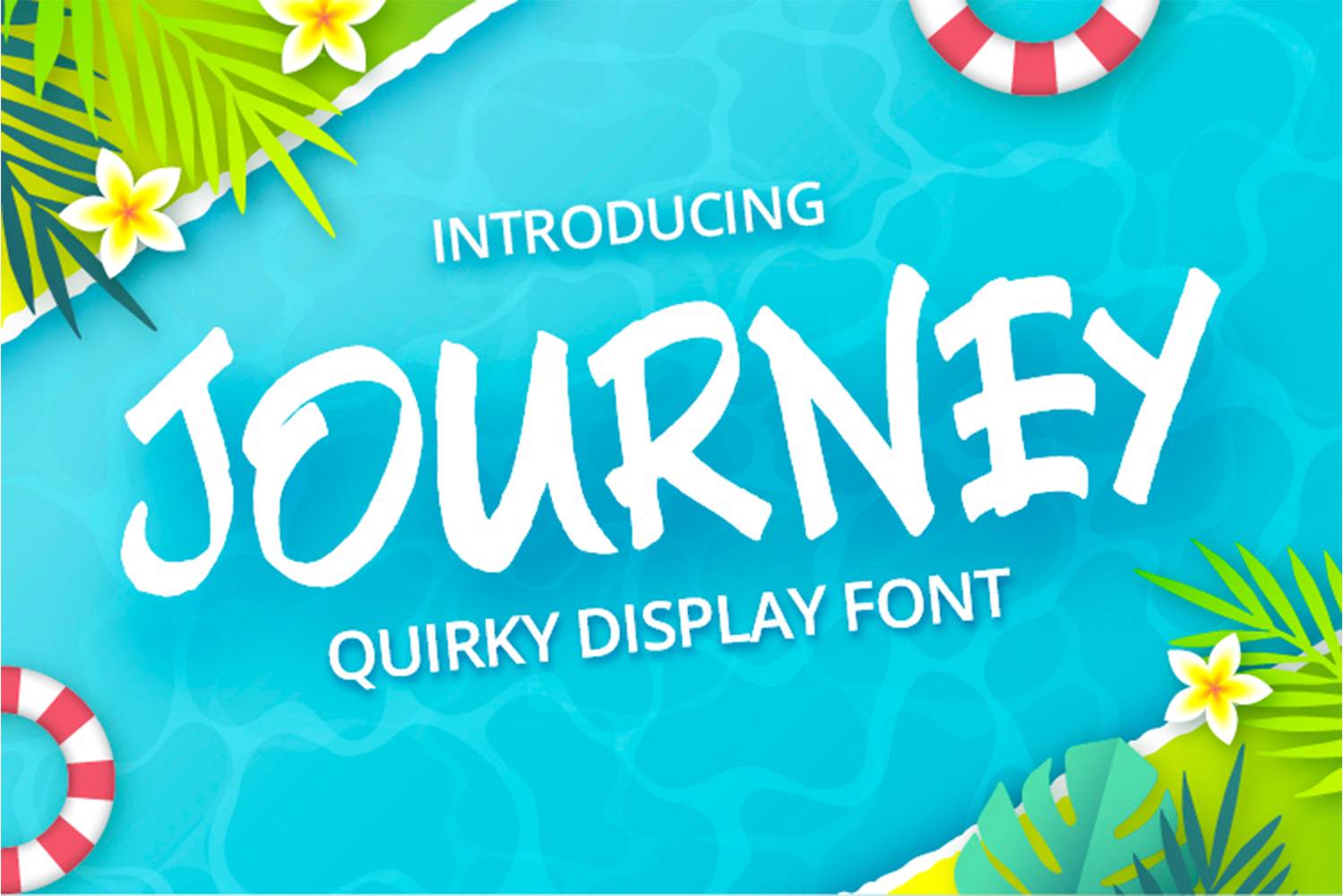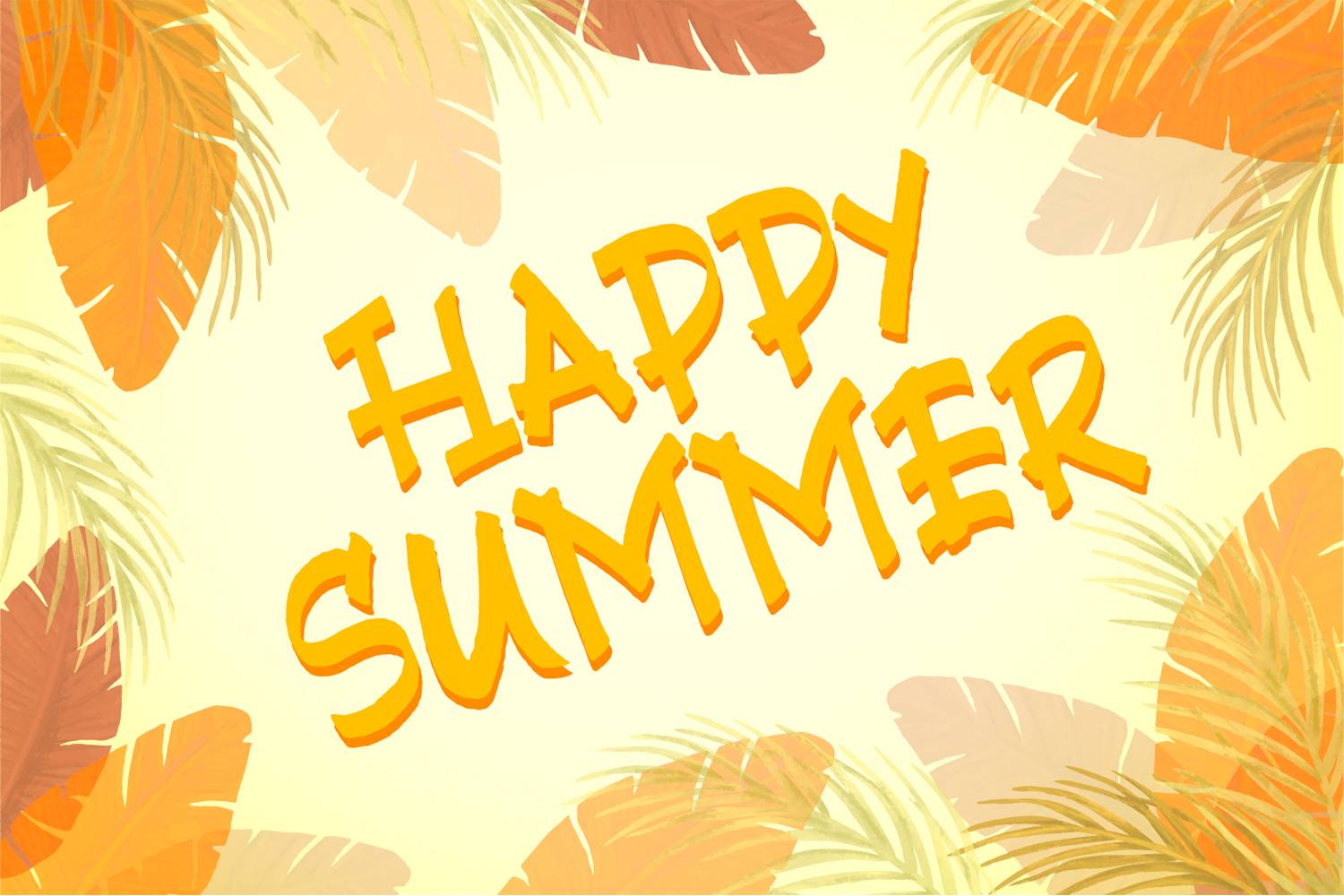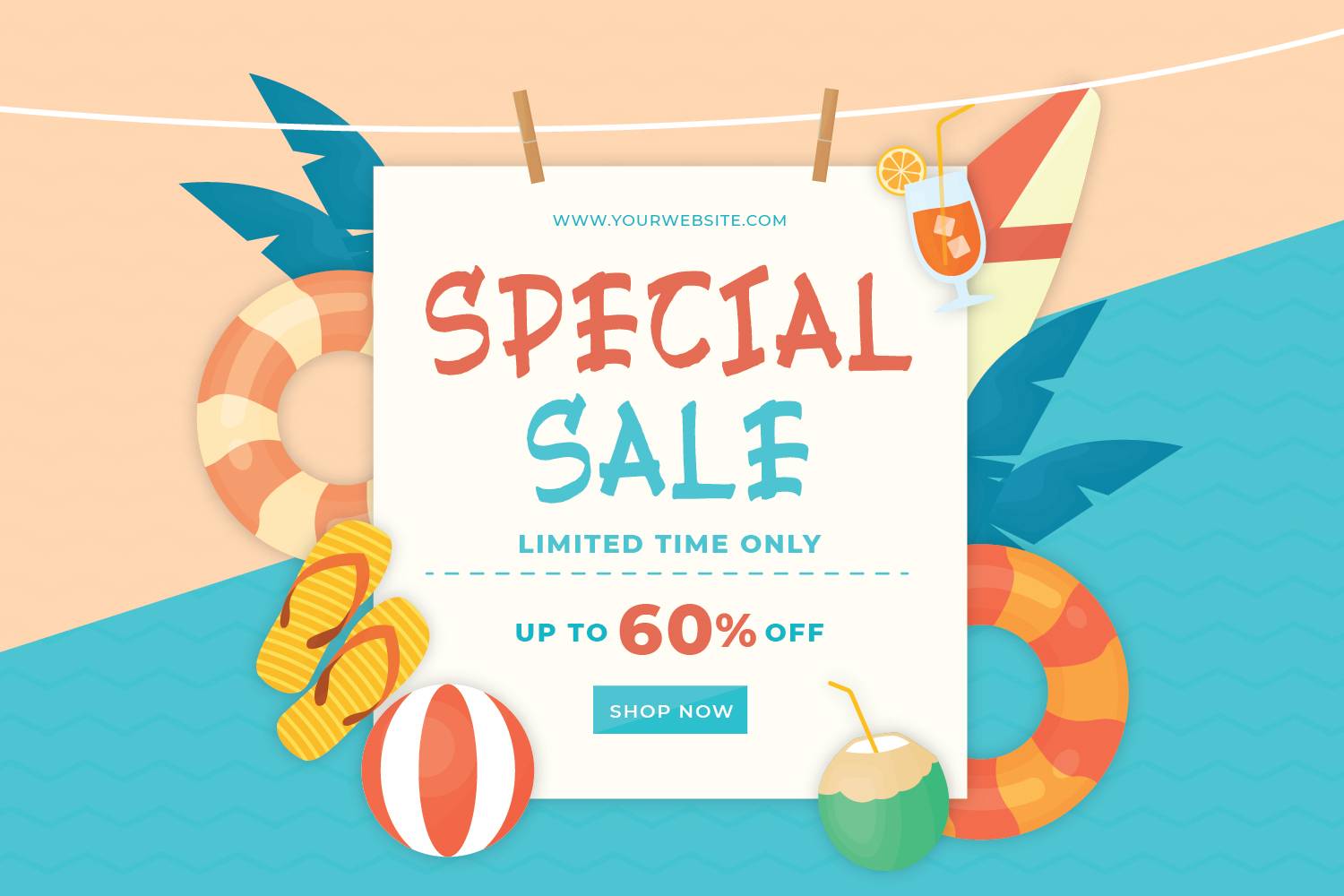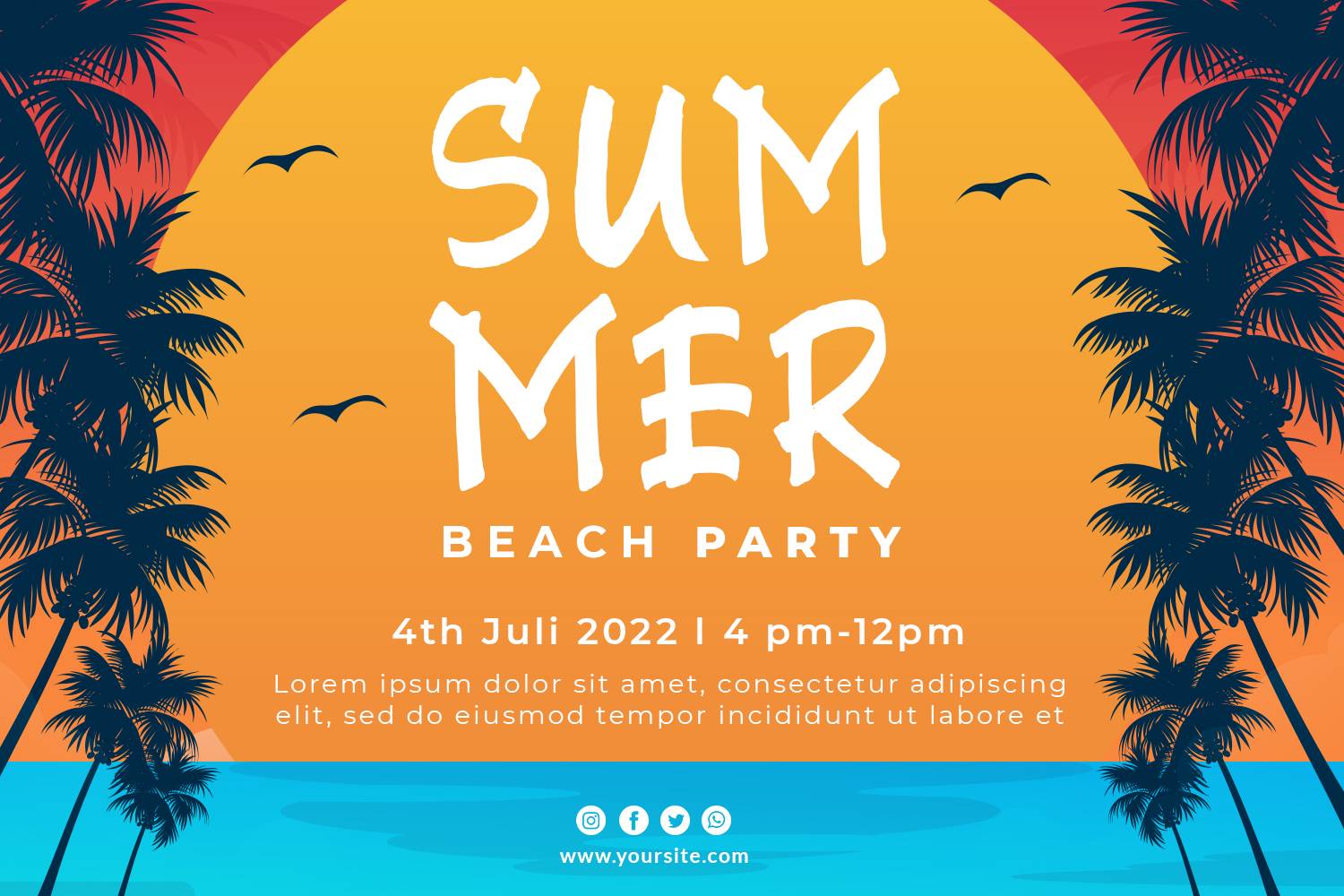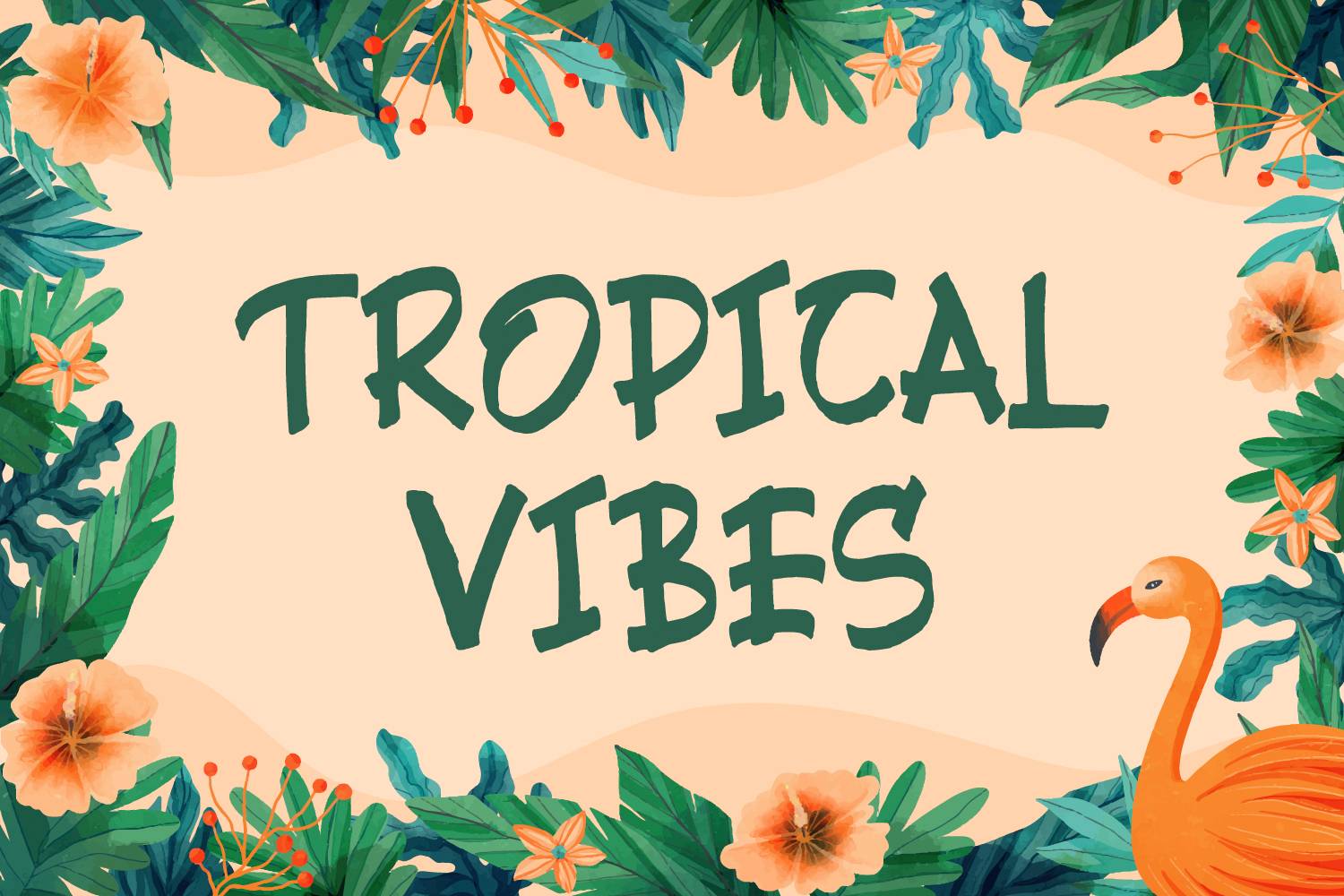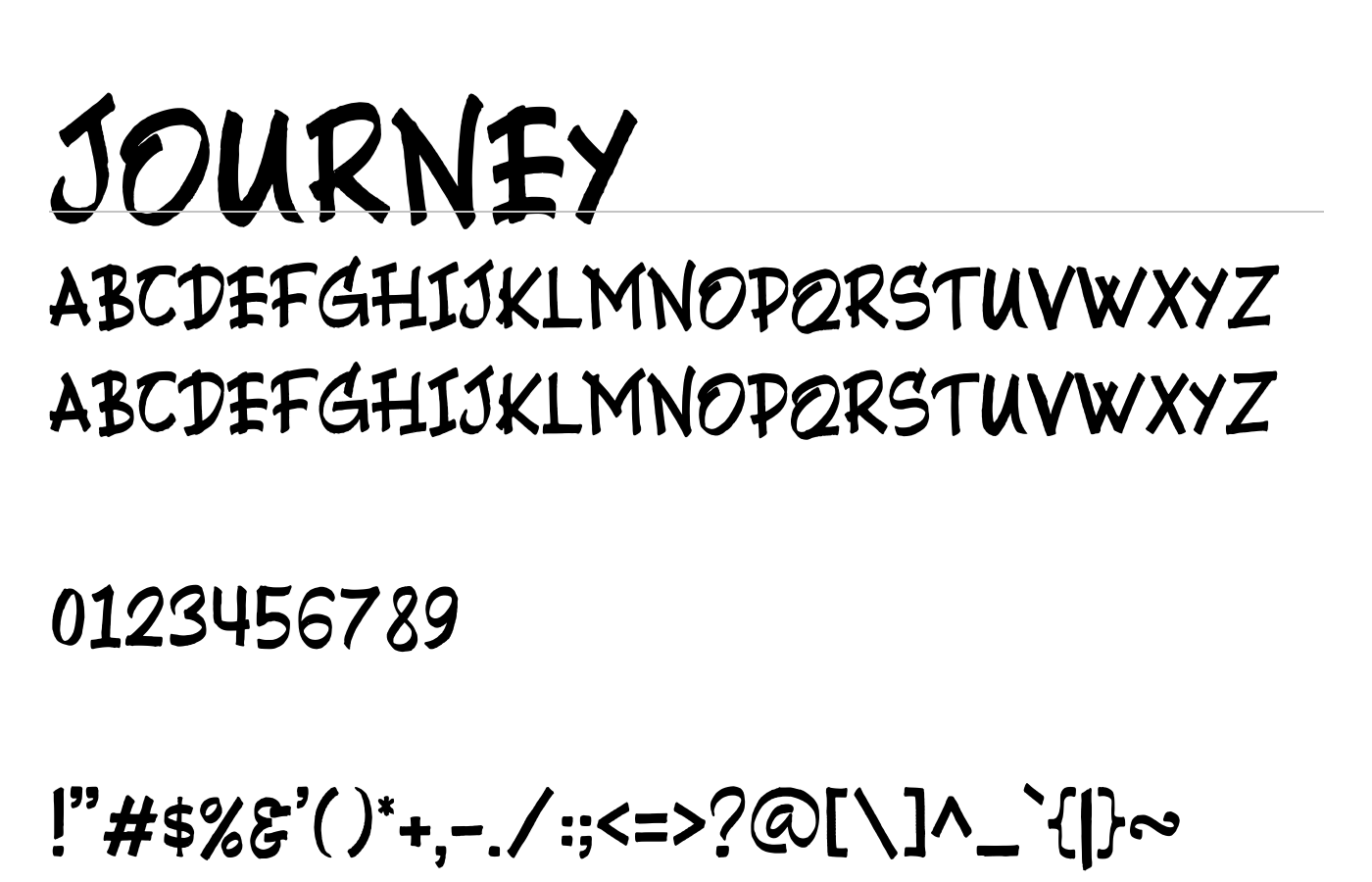
Journey Font is a bold, hand-drawn sans serif typeface with a playful and casual feel, featuring uneven strokes and lively letterforms that evoke a sense of adventure and spontaneity. Its strong, slightly condensed shapes with moderate contrast give it personality and warmth, making it perfect for creative projects, informal branding, posters, and headlines that aim to capture an energetic, approachable vibe.
Journey Font
About Journey Font